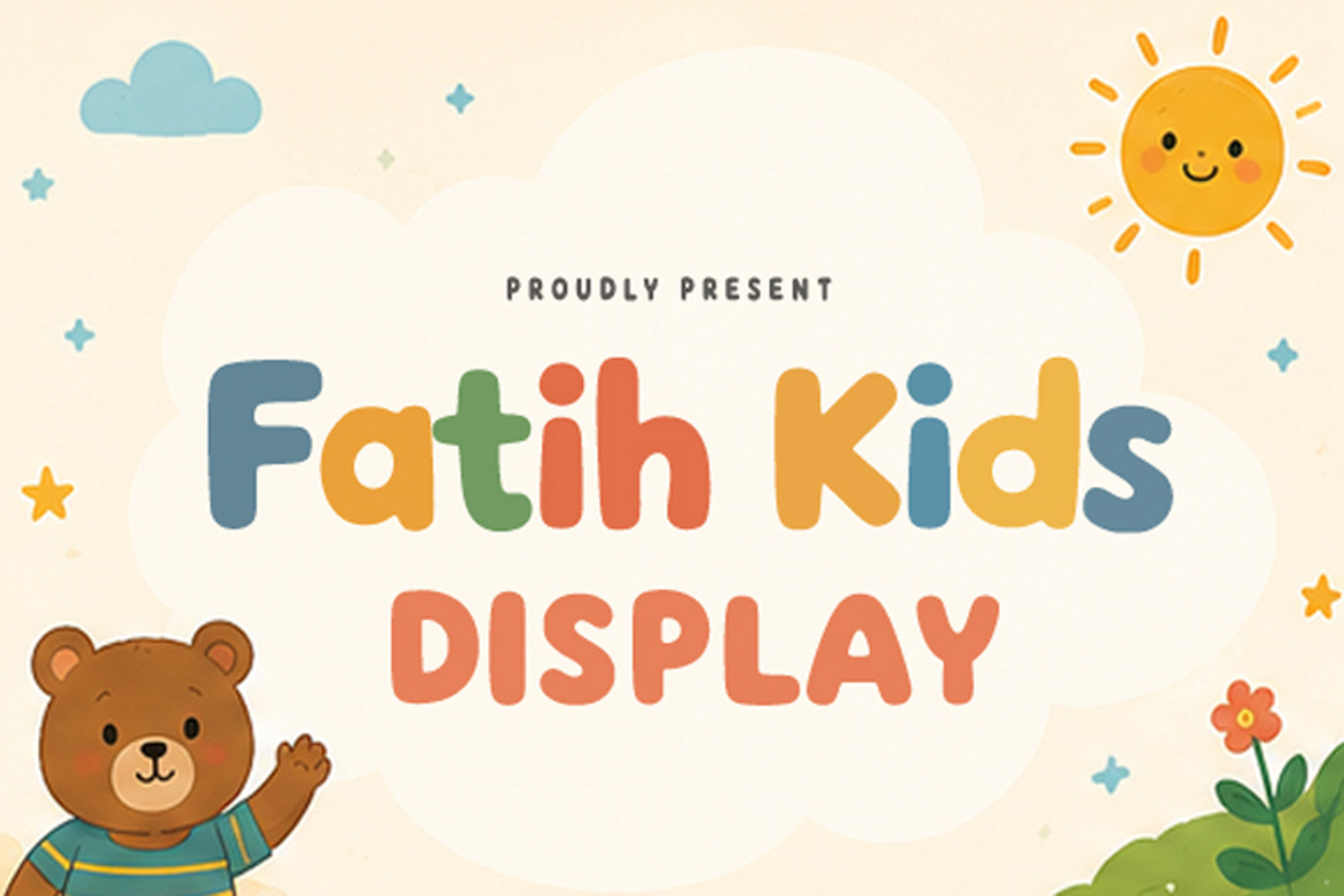
Fatih Kids Display
This font features a playful, rounded display style with bold, soft-edged letterforms that create a warm and approachable appearance. Its thick strokes, smooth curves, and slightly irregular proportions give it a handcrafted, child-friendly personality, making it highly legible while maintaining a fun and energetic feel. The use of vibrant colors further enhances its cheerful and inviting aesthetic, making it particularly suitable for children's books, educational materials, toy packaging, nursery branding, and other creative projects that aim to convey friendliness, imagination, and positivity.